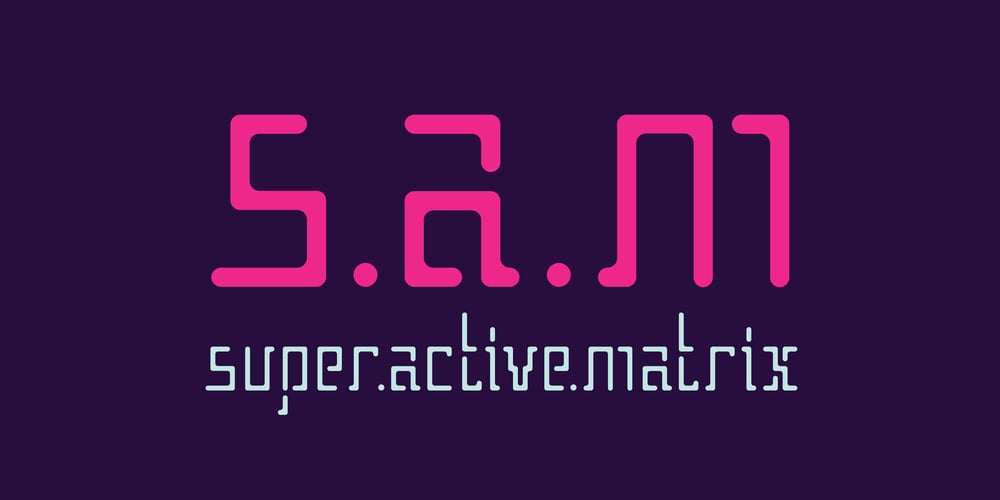
Super Active Matrix
Super Active Matrix font
Super Active Matrix Font Family was designed by Phil Richardson and published by Folding Type. Super Active Matrix contains 2 styles and family package options. S.A.M (Super Active Matrix) combines the big, bright and bold with the microscopic and mathematically precise. Inspired by old science fiction films and new technologies, S.A.M merges the rigid constraints of display mechanics with the free-flowing curves of neon signs.This font is great for a classic sci-fi look – perfect for headlines/logotype. S.A.M also works for blocks of text, unlike some other display fonts.The matrix exists to bring order to an idea – it tames the free-flowing curves of neon signage into a repeatable structure while maintaining a retro aesthetic. Each character, glyph or symbol is drawn on a bitmap grid, merged with a dot matrix to round off the edges.